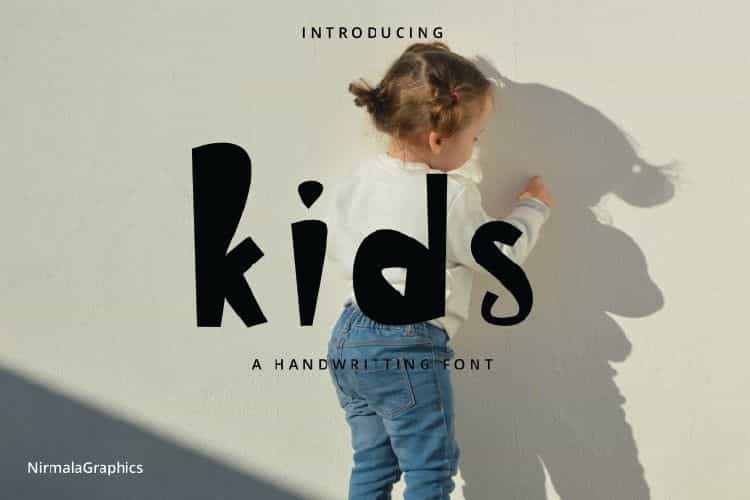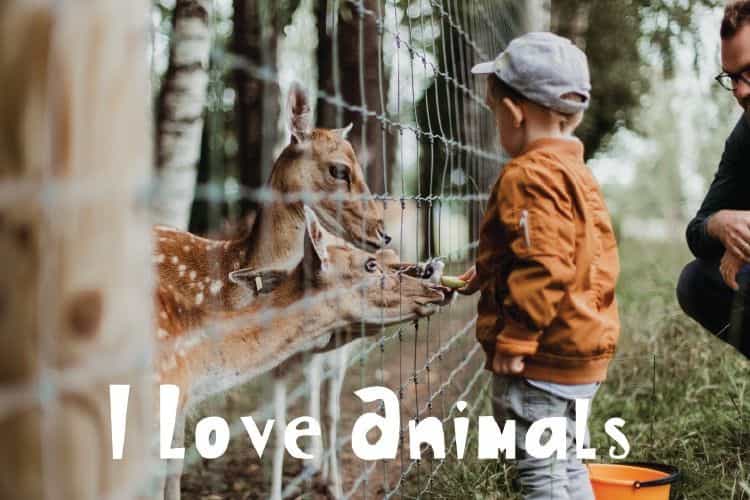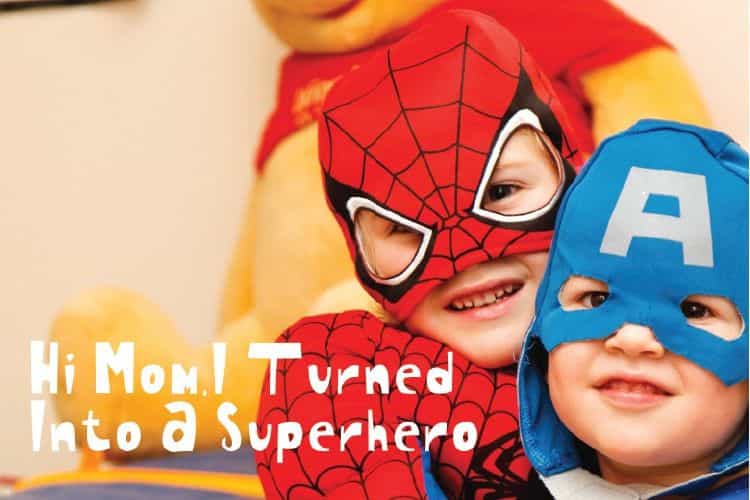
Discover Kids Font, part of the Handwritten Display collection—a versatile and unique font perfect for adding a personal touch to your projects. Download it for free and enjoy crafting designs with style, from invitations to social media posts. This font is available exclusively for personal use, giving you the freedom to create without limits. Unlock your creativity with Kids Font today!
Kids Font is a playful type of block font and is characterized by a rough appearance. Perfect for your package design T-shirt, posters, book covers, album covers, kids stuff card, logo, banner, signage and have fun with this font!